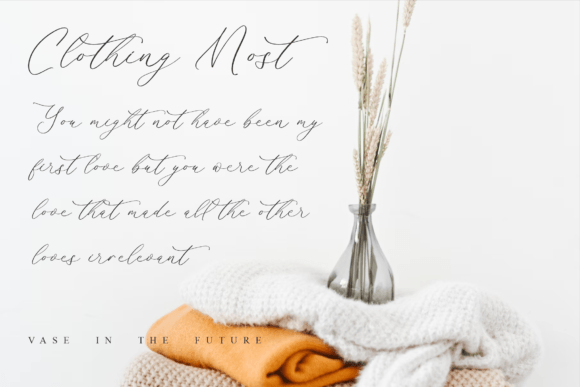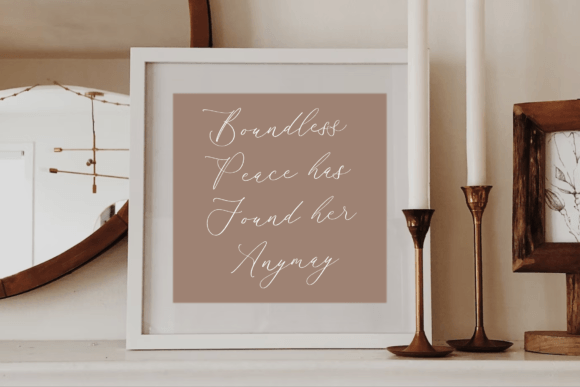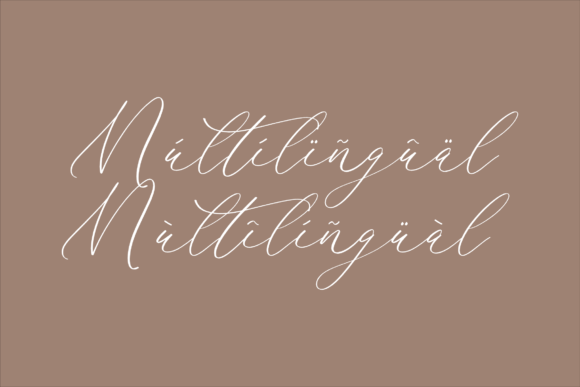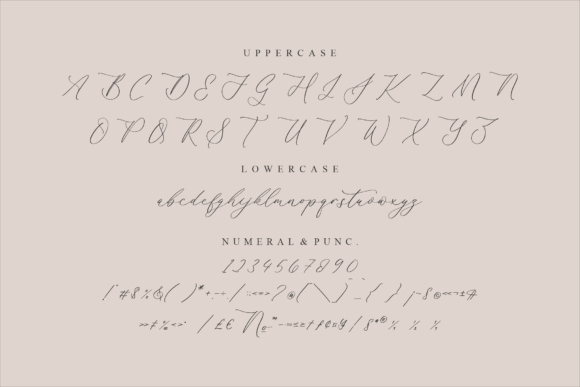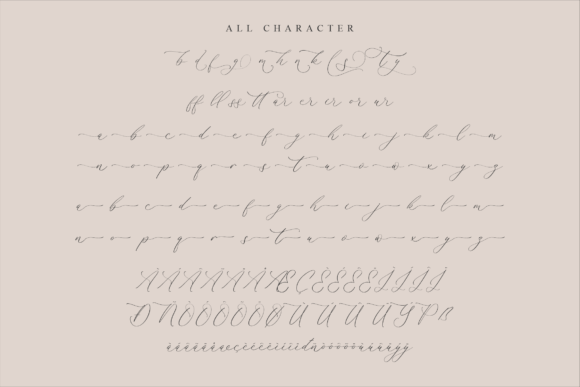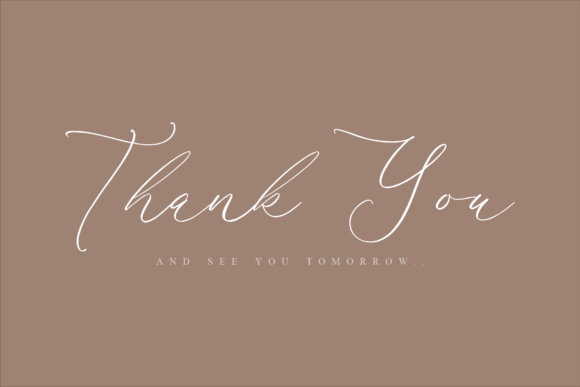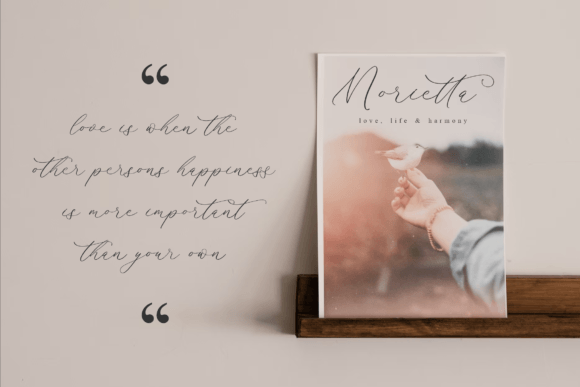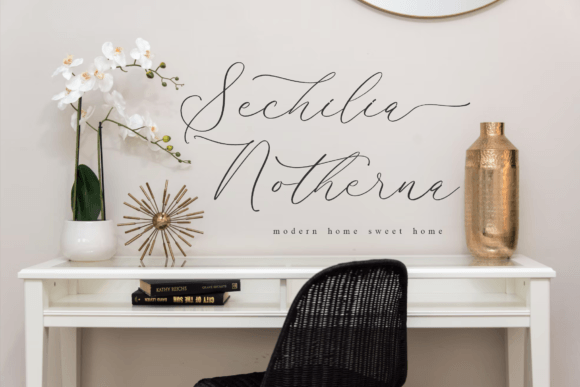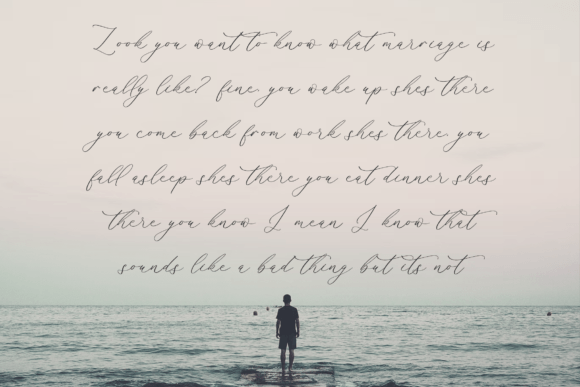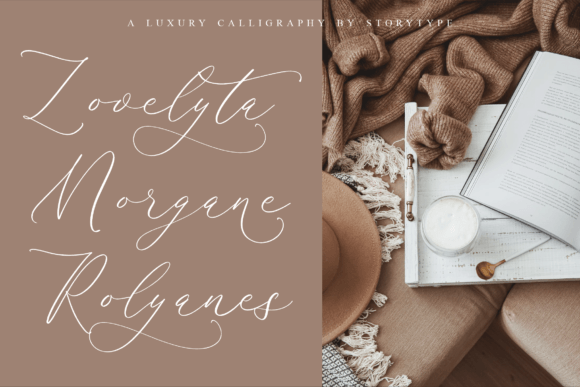
Harlyetta Mordila Font
Add Grace and Elegance with Harlyetta Mordila Handwritten Font
The Harlyetta Mordila Handwritten Font is a beautiful and delicate script typeface that brings sophistication to any design. With its flowing lines and well-balanced characters, this font is perfect for creators who want to express elegance, femininity, and class through their work.
Perfect for Invitations, Logos, and Elegant Branding
This graceful script is ideal for a variety of uses, including wedding invitations, personal branding, luxury logos, and stationery design. Its smooth curves and refined structure add a timeless quality to each project, making it a go-to choice for romantic and upscale themes.
Additionally, Harlyetta Mordila works beautifully in fashion labels, event announcements, and high-end product packaging, where a sophisticated and custom handwritten feel is needed.
A Flowing Script with Balanced Letterforms
What sets the Harlyetta Mordila Handwritten Font apart is its perfectly balanced characters and graceful movement. Each letter flows naturally into the next, creating a seamless and harmonious script that looks professional yet personal.
The font was designed to emulate elegant penmanship—refined, delicate, and captivating. As a result, it enhances visual appeal while remaining easy to read.
Works Across Digital and Print Projects
Whether you’re creating social media graphics, print materials, or website headers, Harlyetta Mordila adapts seamlessly. It maintains legibility across different sizes and screen types, ensuring your message is always both beautiful and clear.
Moreover, this font pairs wonderfully with minimalist serif or sans-serif fonts. This allows you to create stylish contrasts and balanced compositions for modern layouts and branding kits.
Why Choose Harlyetta Mordila Handwritten Font?
• Elegant, flowing handwritten script style
• Ideal for wedding designs, branding, and luxury layouts
• Clean and balanced character structure
• Great for both digital and print use
• Adds a delicate and graceful touch to your projects
Create Refined and Romantic Designs with Ease
In conclusion, the Harlyetta Mordila Handwritten Font is a must-have for designers who value beauty, harmony, and elegance in their typography. Its refined details and fluid curves make every word feel intentional and expressive.
Whether you’re designing a wedding suite, building a personal brand, or crafting luxury visuals, Harlyetta Mordila helps you deliver your message with grace and sophistication. Let this font add a touch of timeless beauty to your next creative project.